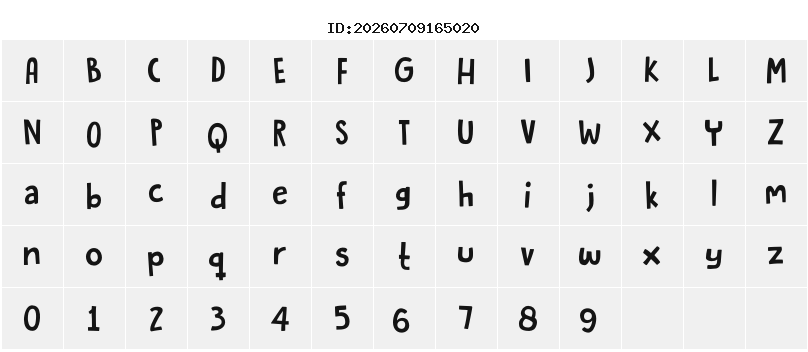
DK Butterfly Ball Preview
• Font Name: DK Butterfly Ball
• Designer: David Kerkhoff
About DK Butterfly Ball.otf
DK Butterfly Ball.otf is a modern, elegant sans-serif font designed for ultimate readability and visual harmony. Perfect for branding, headlines, web design, and print materials.